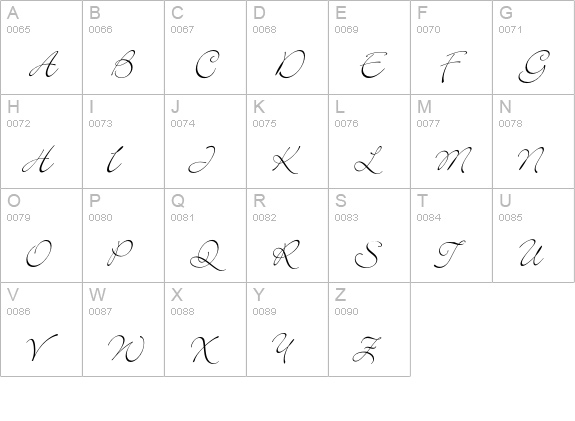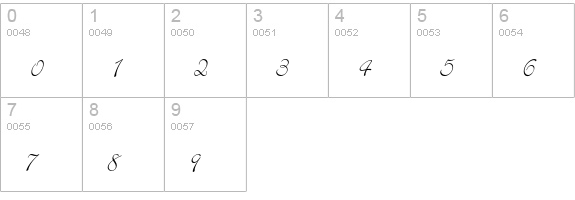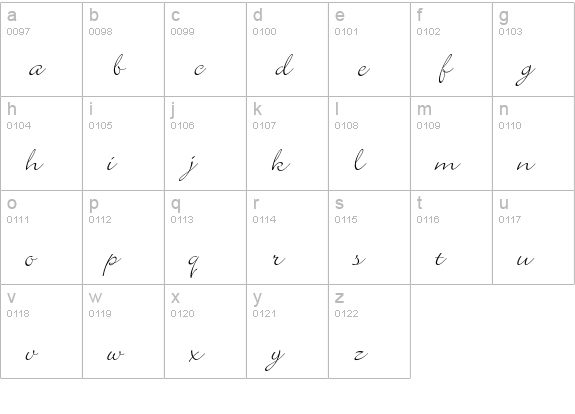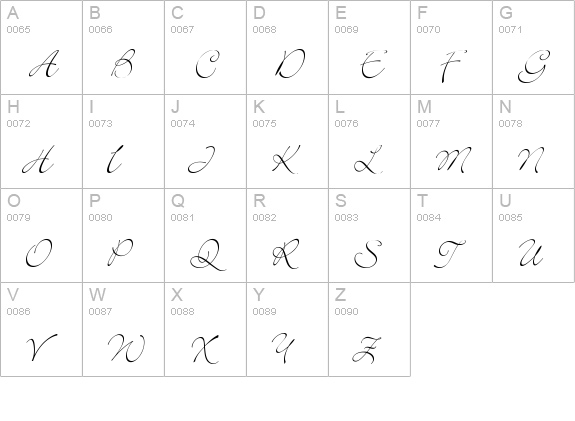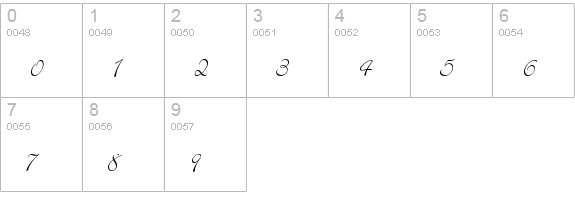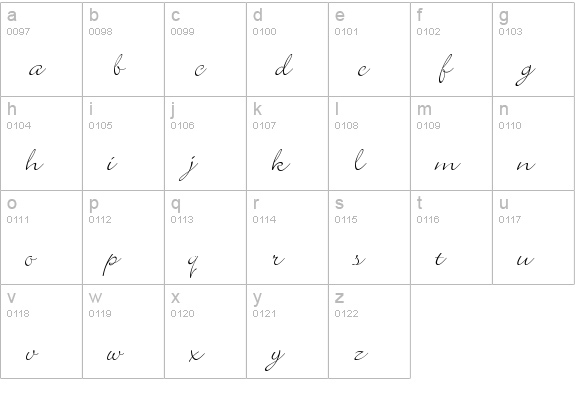
Bickley Script Std is a beautifully elegant font that exudes sophistication and charm. With its flowing and graceful cursive style, this typeface is perfect for adding a touch of class to any design project. Whether you're working on wedding invitations, branding materials, or any other creative endeavor, Bickley Script Std will elevate your work to the next level. The best part is that Bickley Script Std is available for free download at FontsMarket.com. This means you can easily access this stunning font and use it in your projects without any cost. Don't miss out on this opportunity to enhance your designs with the timeless beauty of Bickley Script Std. Download it now and let your creativity shine!